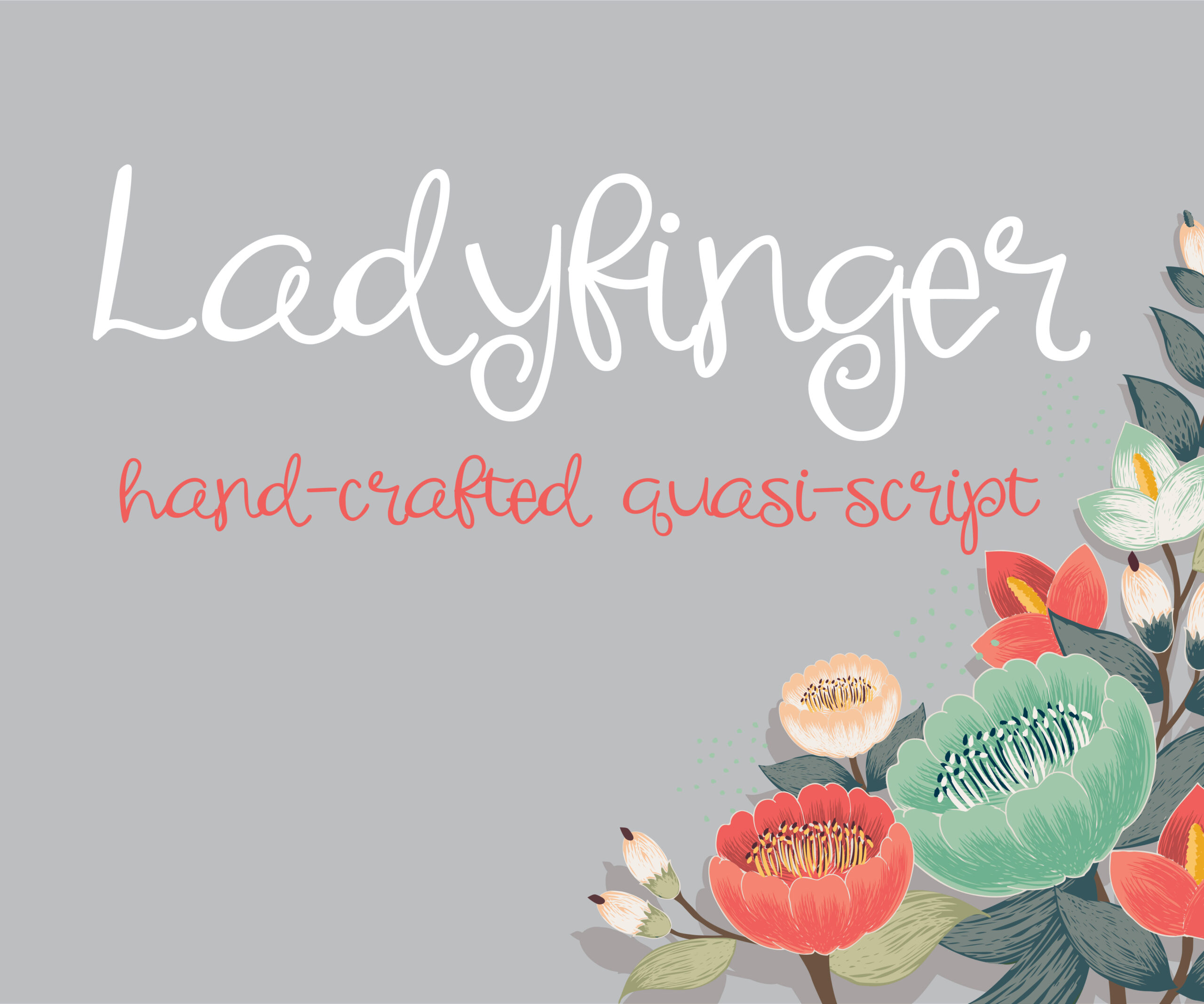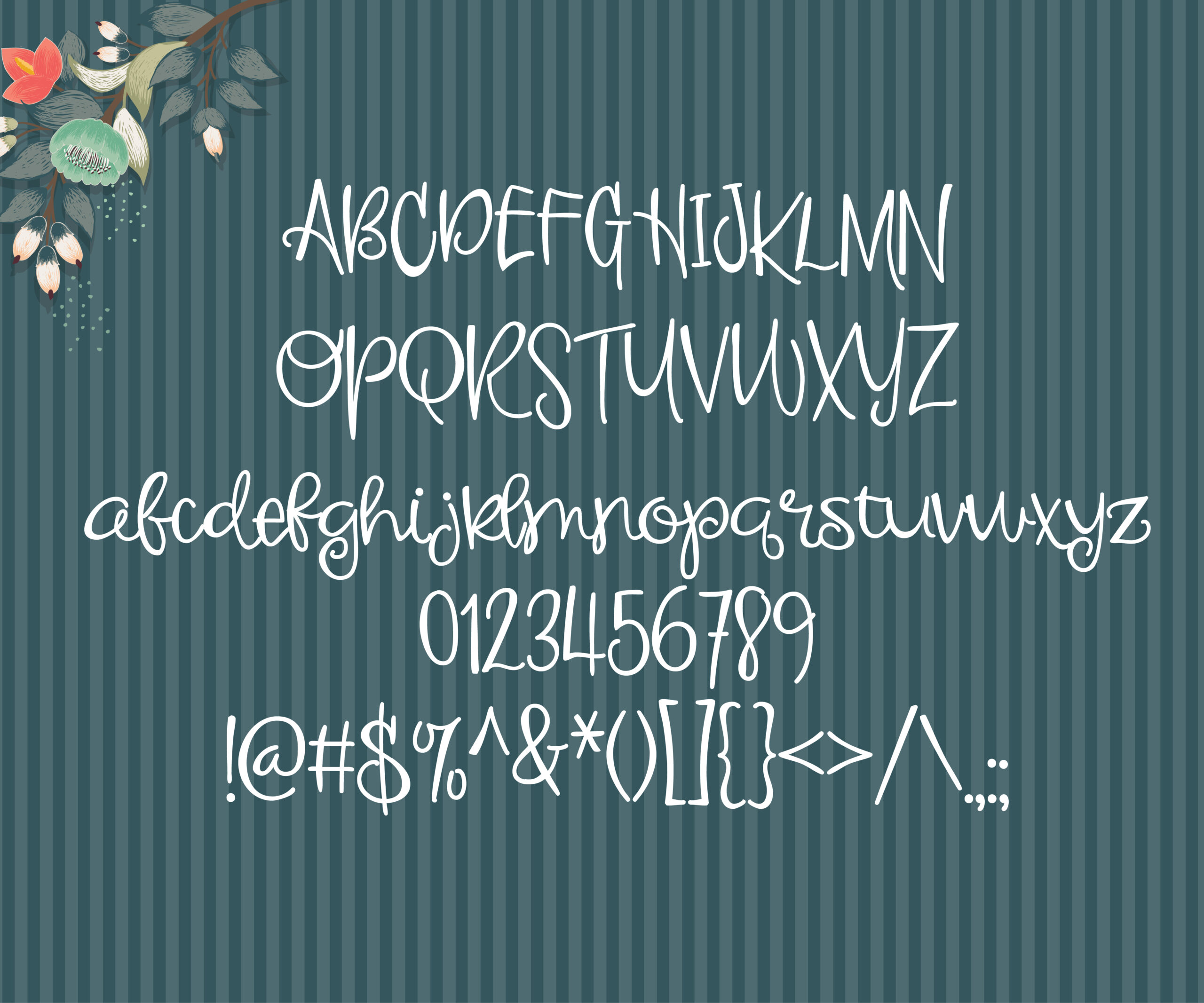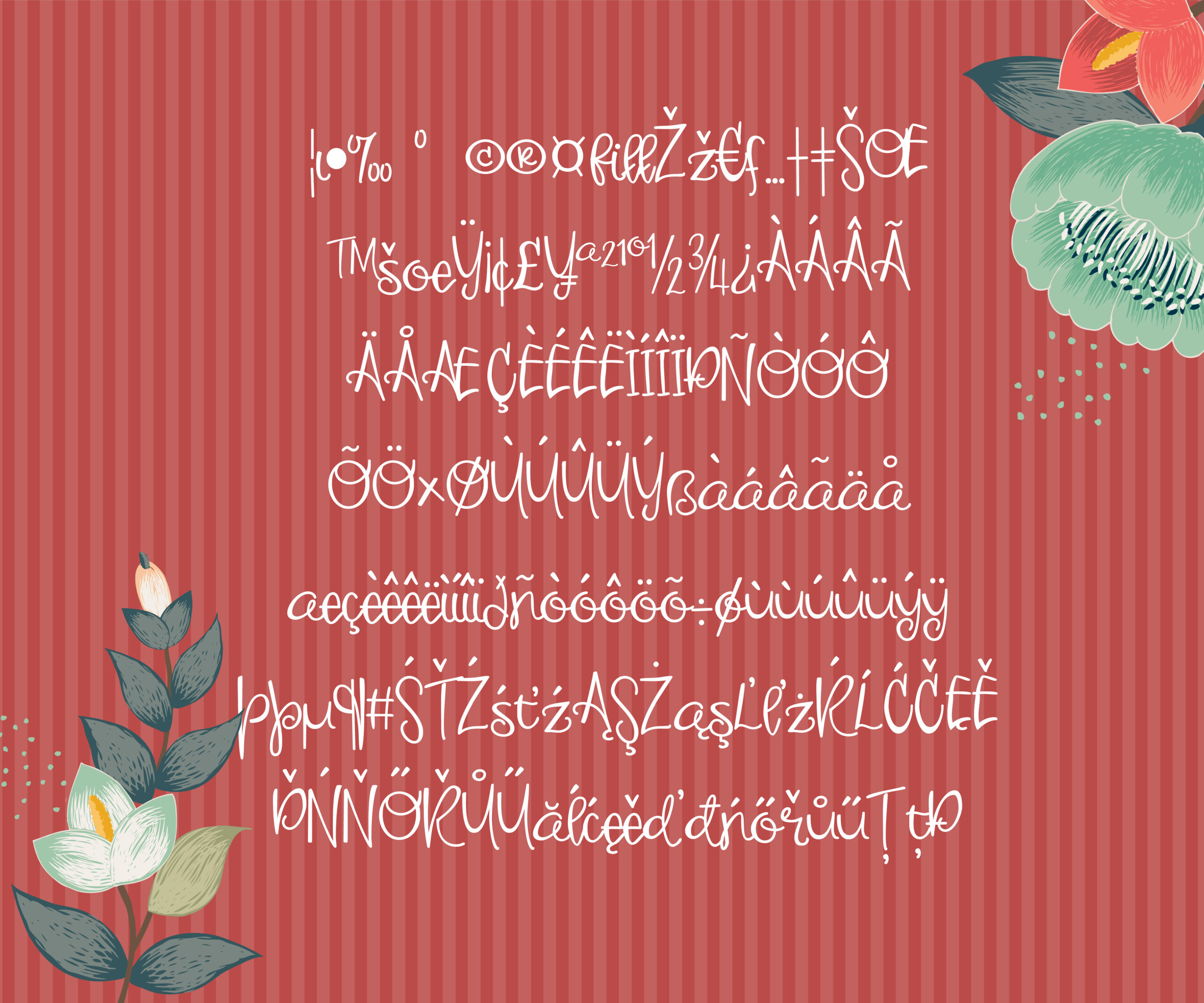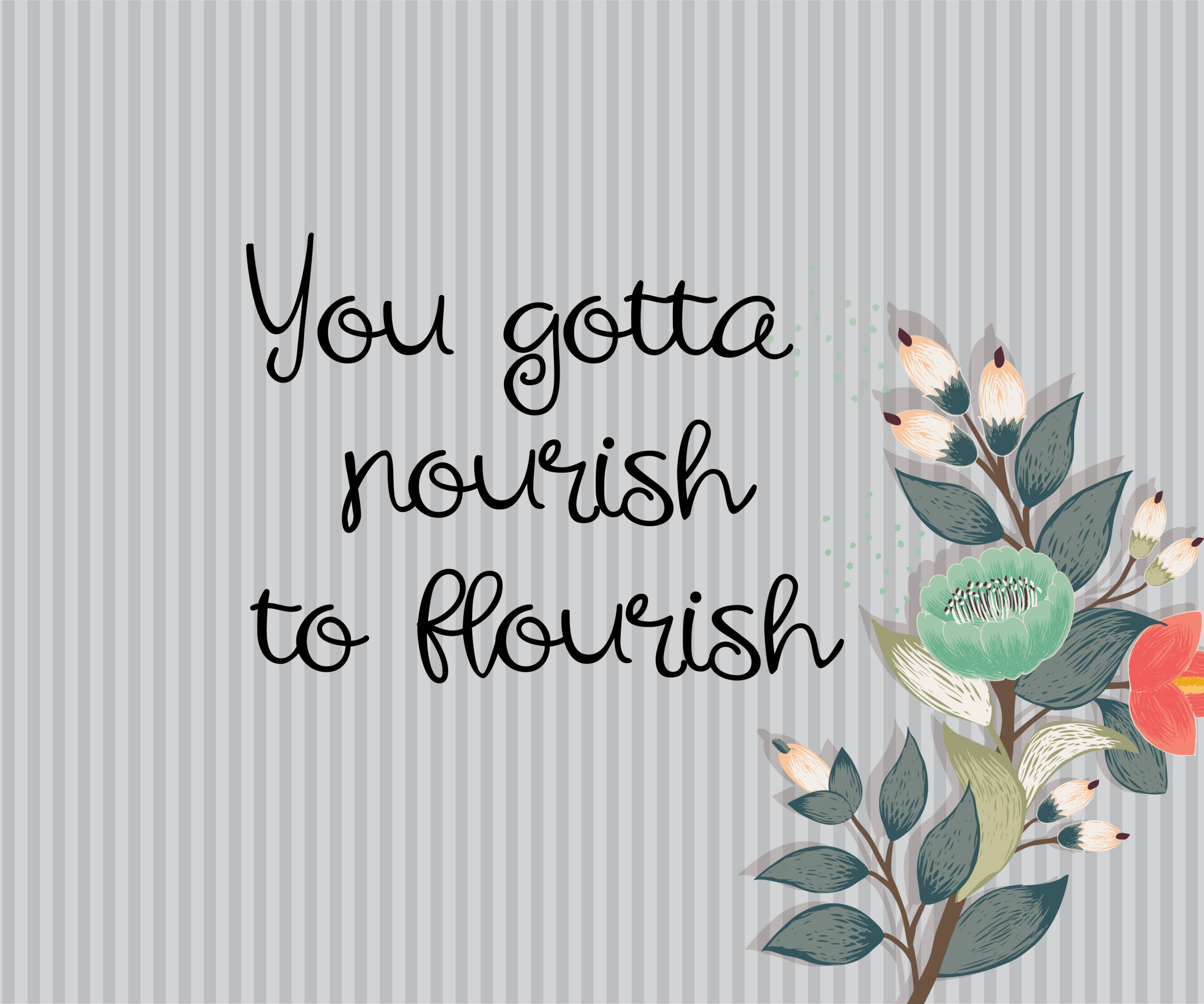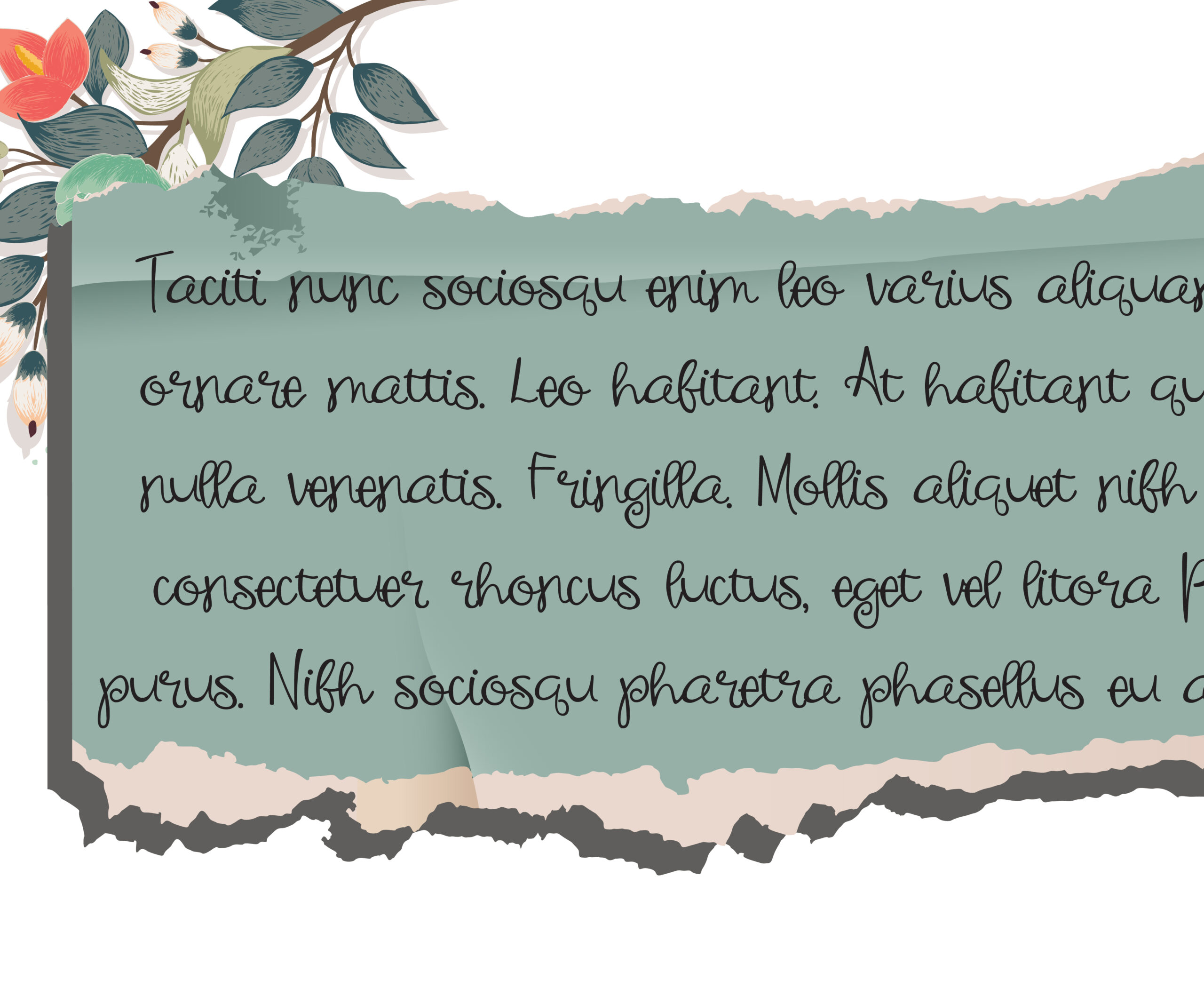
Ladyfinger Font
About Ladyfinger Font
Ladyfinger is a casual quasi-script font…part script, part print. It was hand-printed, scanned and cleaned. It adds a crafty and whimsical touch to any project!